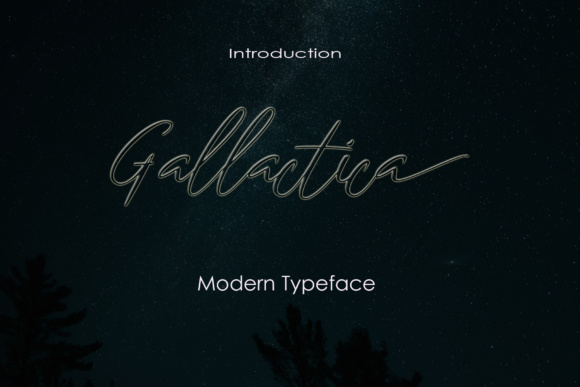
Gallactica Font
Prepare to be mesmerized by the remarkable Gallactica Font, a masterpiece of modern typography. This signature script, a brainchild of Analogous, exudes an aura of confidence and sophistication, promising to elevate your creative endeavors to breathtaking heights.
Indulge in the allure of Gallactica's captivating strokes, each meticulously crafted to convey a sense of allure and elegance. Let its graceful curves and whimsical flourishes dance across your designs, infusing them with a captivating charm that will leave an unforgettable mark.
Whether you're crafting enchanting invitations, captivating marketing materials, or simply seeking to add a touch of timeless beauty to your personal projects, Gallactica Font stands ready to be your trusted companion. Its versatility knows no bounds, making it an indispensable tool for any creative soul.
Unleash your imagination with Gallactica Font and witness the transformation of your designs into true works of art. Let its enchanting aura enchant your audience, leaving them captivated by the sheer brilliance of your creations.
Embrace the power of Gallactica Font and embark on a creative journey where elegance and inspiration intertwine. Its remarkable beauty and versatility will ignite your creativity, empowering you to weave tales of enchantment with every stroke.